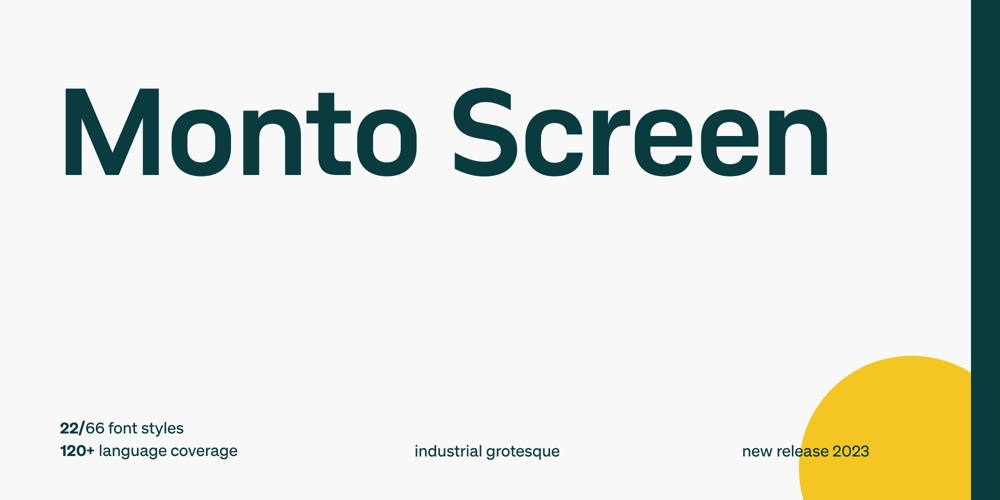
Monto Screen
Monto Screen font
Monto Screen Font Family was designed by Lucas Tillian and published by Lucas Tillian. Monto Screen contains 22 styles and family package options. Introducing Monto Screen โ€“ the latest addition to the Monto superfamily, distinguished by its rational and meticulously constructed aesthetic. This new sub-family complements the success of Grotesk and Grotesk Display while offering a fresh take on Monto’s design principles.Monto Screen is purposefully crafted for the digital era, ensuring unparalleled legibility and visual clarity on screens of all sizes. Its stroke endings align precisely at 90 and 0-degree angles, and its rounded shapes feature carefully designed verticals, creating a clean and harmonious structure.Through its rational construction, Monto Screen exudes a very trustworthy feel and established aesthetic, embodying a sense of reliability and timeless elegance. Its cap height aligned to the ascenders presents a unique choice that sets it apart, making it a compelling and distinct addition to the Monto superfamily. Embrace the future of typography with Monto Screen โ€“ a modern and rationally designed typeface that sets new standards for clarity and readability on digital platforms.